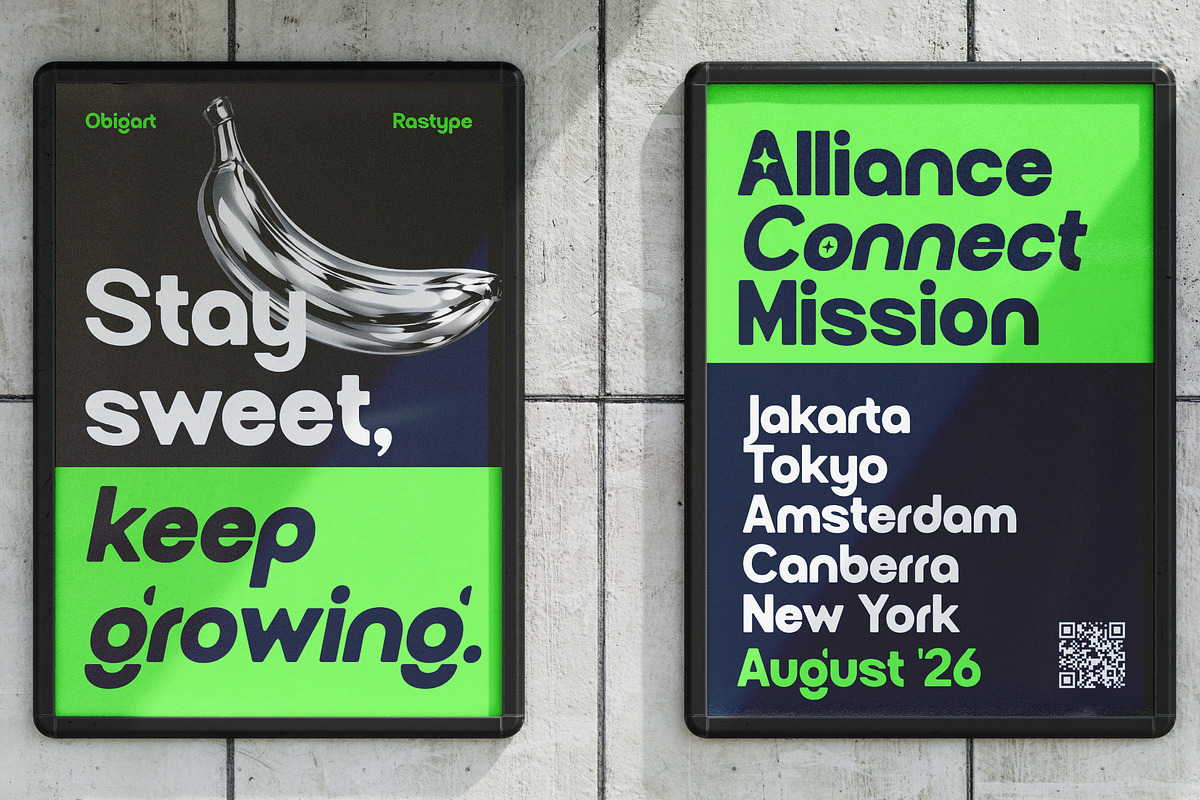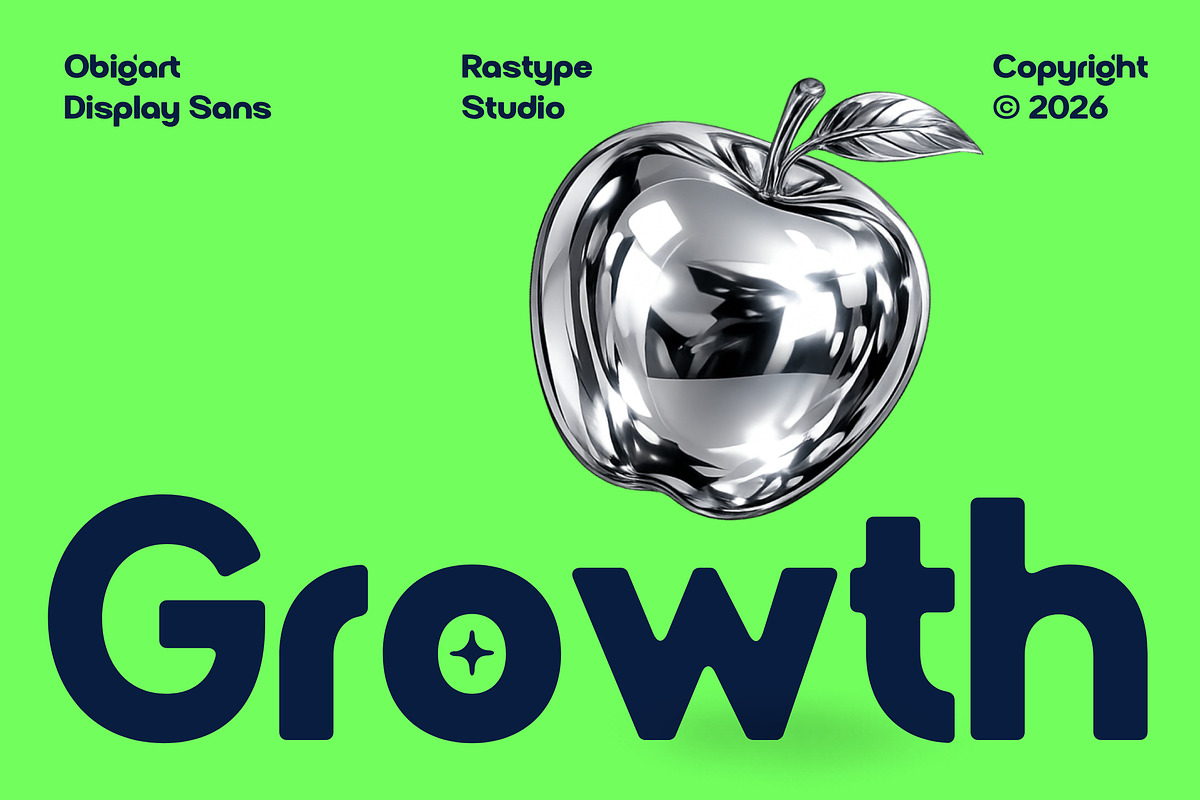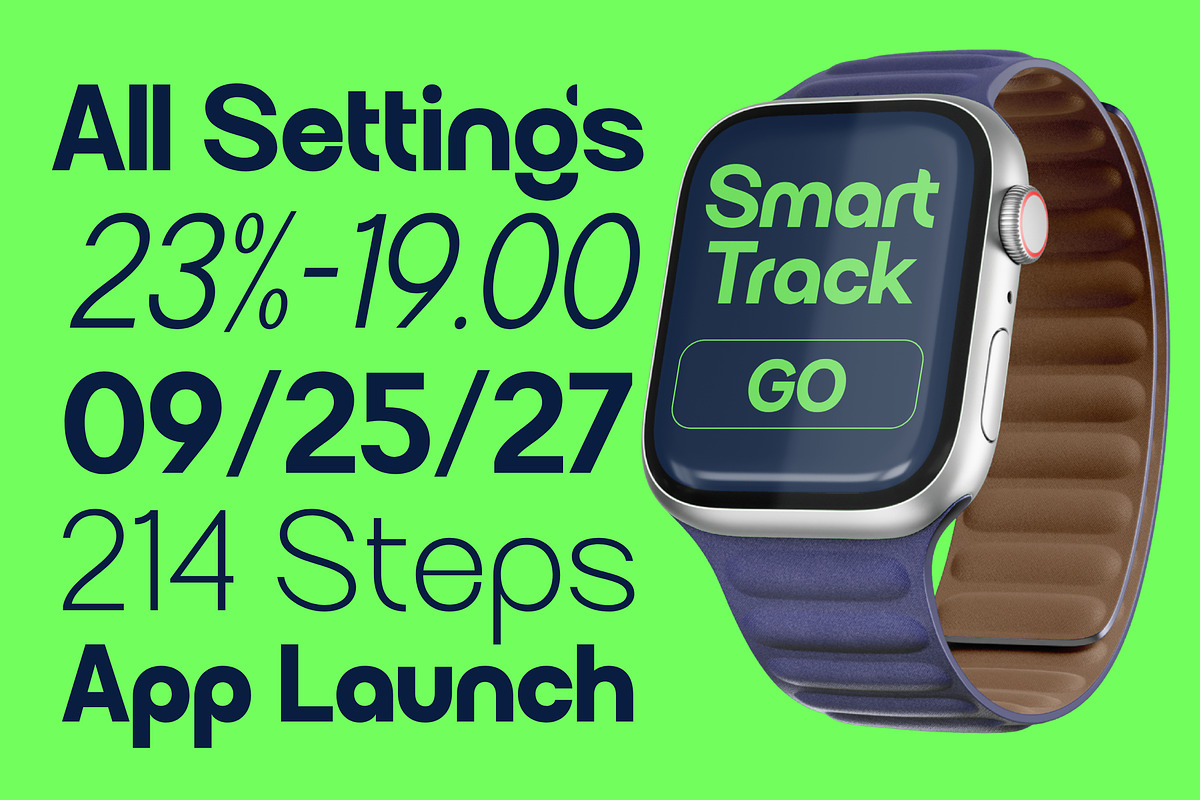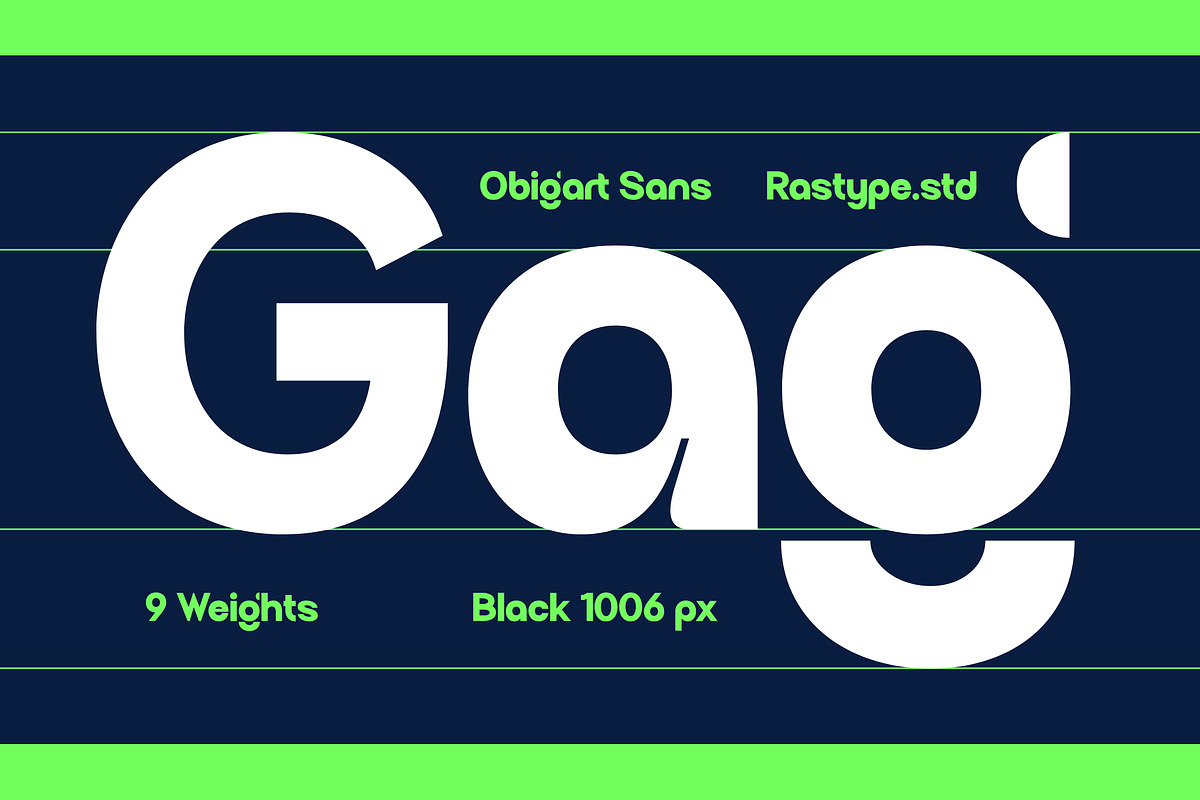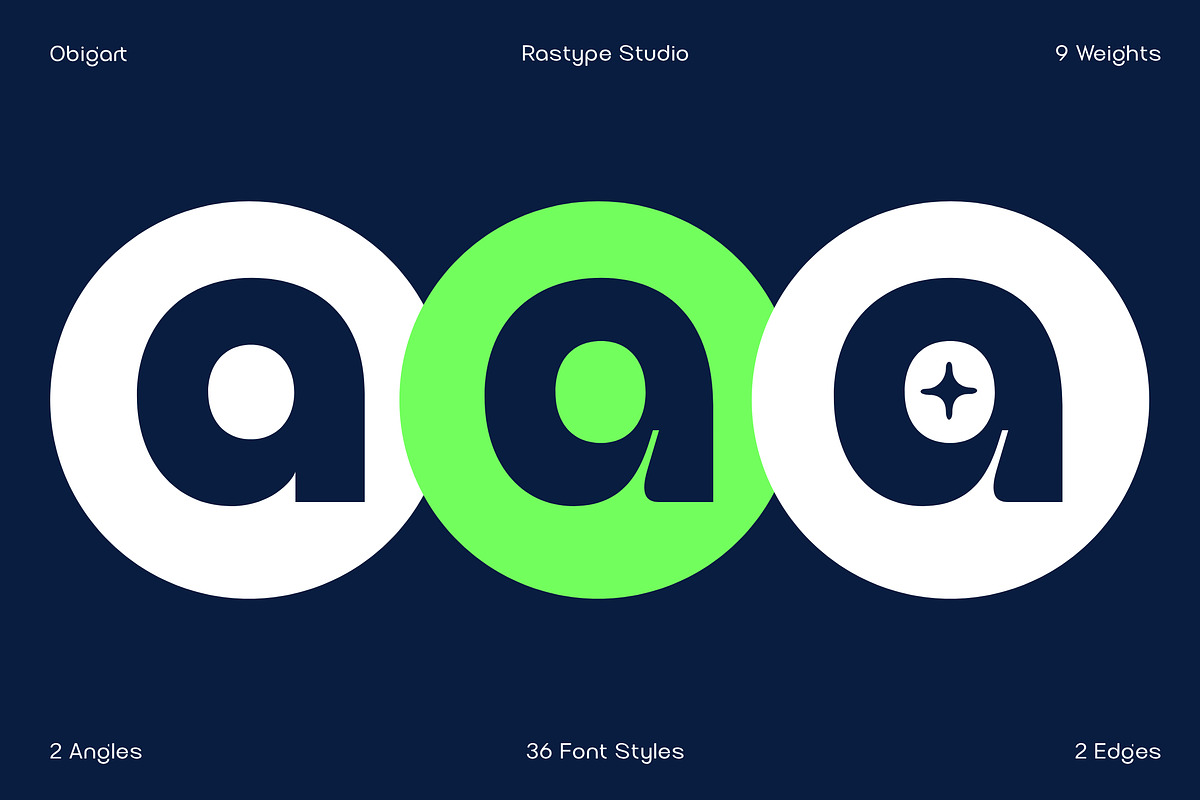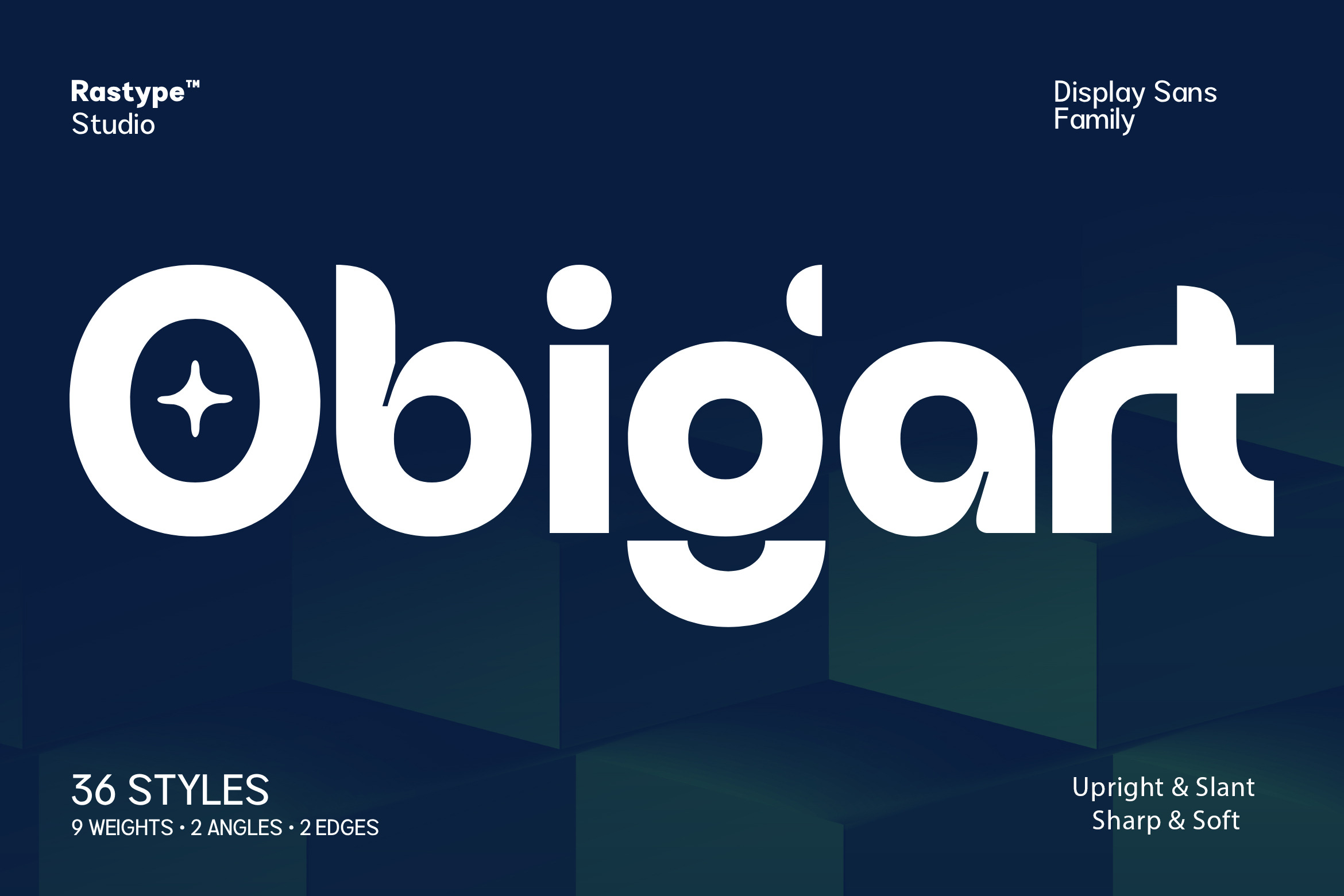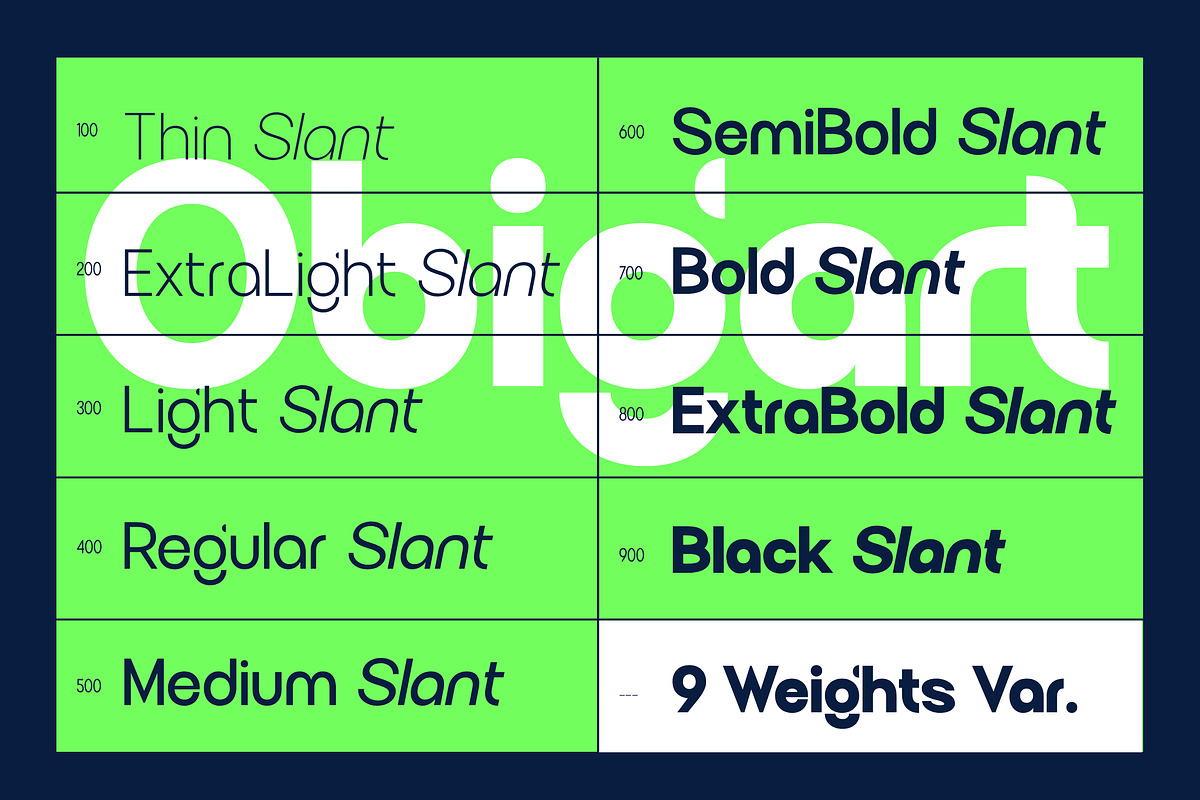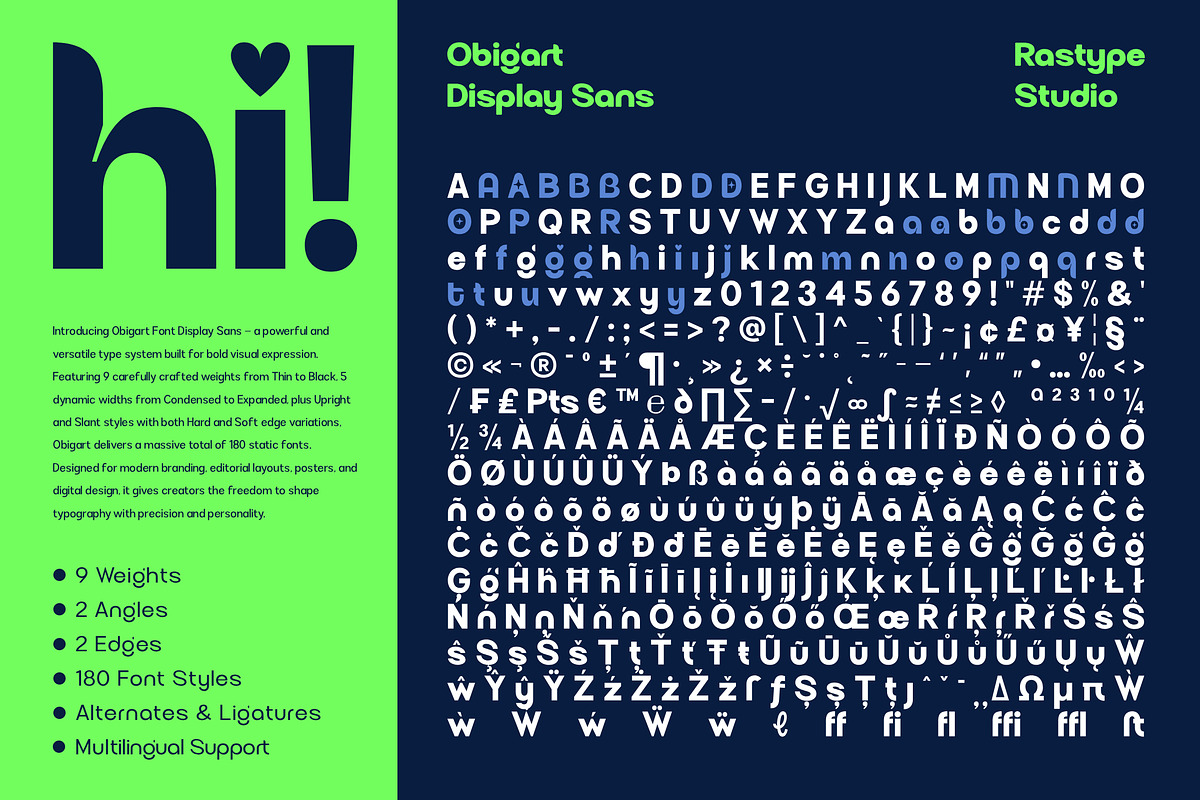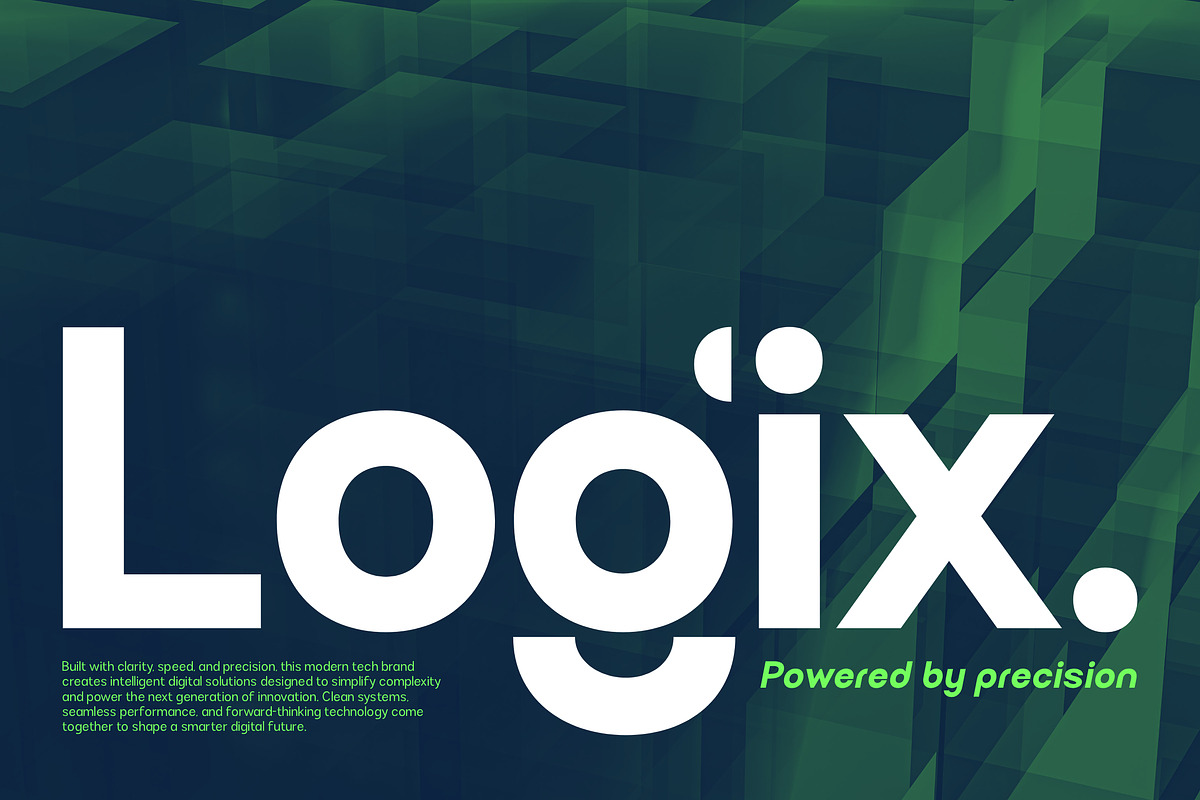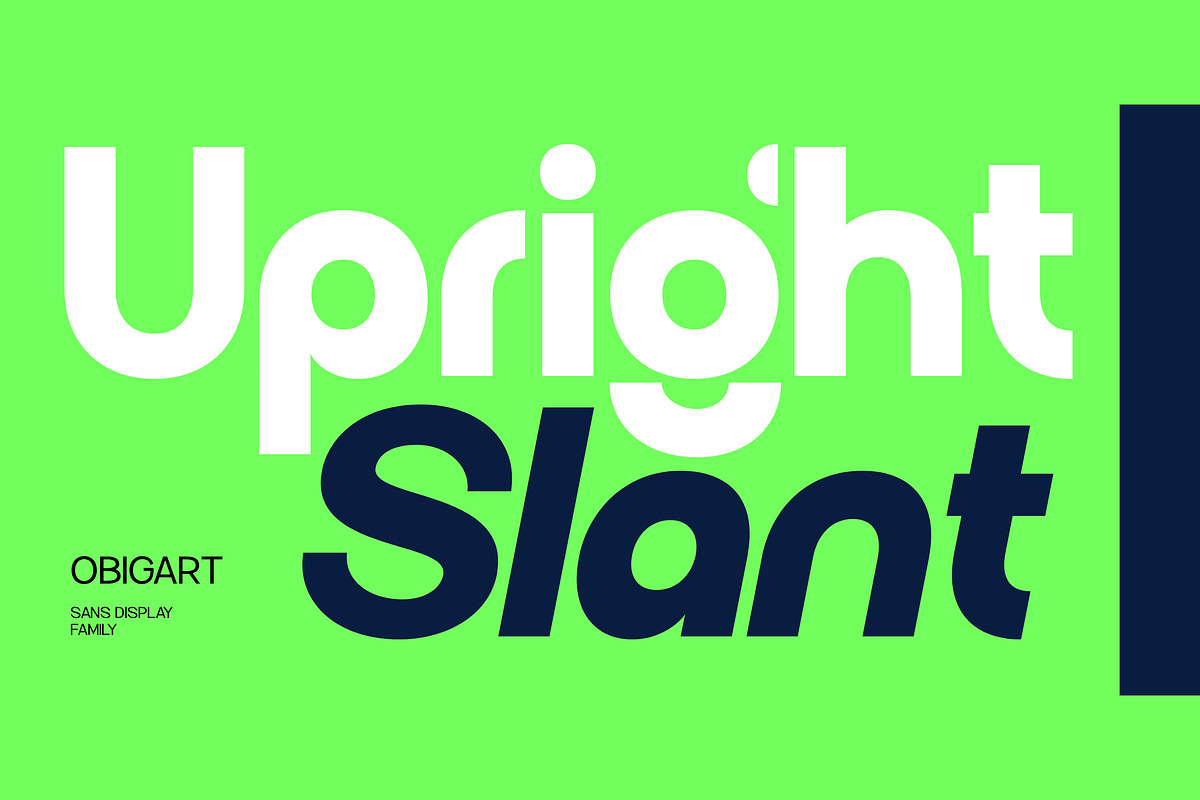
Obigart - Family Font
Obigart is a bold and contemporary display sans family crafted to make a powerful visual statement. Featuring smooth geometric curves, strong proportions, and distinctive character details, Obigart balances modern minimalism with a friendly and approachable personality. Its versatile system includes multiple weights, upright and slanted styles, as well as sharp and soft edge variations, giving designers exceptional flexibility for branding, advertising, packaging, posters, headlines, social media graphics, and editorial design. Whether used for futuristic branding or bold commercial projects, Obigart delivers outstanding readability, strong visual impact, and a memorable typographic presence.